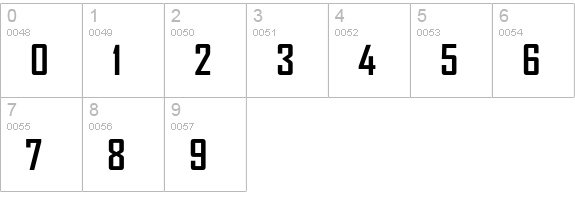
AgencyFB-Bold is a strong, high-contrast variant in the AgencyFB typeface family \xE2\x80\x94 well suited to headlines, attention-grabbing titles, and strong calls-to-action.
AgencyFB-Bold is a striking and bold font that exudes professionalism and confidence. With its strong and commanding presence, this font is perfect for creating eye-catching headlines, titles, and logos that demand attention. The thick and powerful strokes of AgencyFB-Bold make it a standout choice for projects that require a bold and impactful look. The best part is that AgencyFB-Bold is available for free download at FontsMarket.com. This means that you can easily access this powerful font and use it in your projects without any cost. Whether you're designing a poster, website, or branding materials, AgencyFB-Bold is a versatile font that will elevate your designs and make a lasting impression. Don't miss out on this opportunity to add AgencyFB-Bold to your font collection for free. Download it today from FontsMarket.com and take your designs to the next level with this bold and impactful typeface.